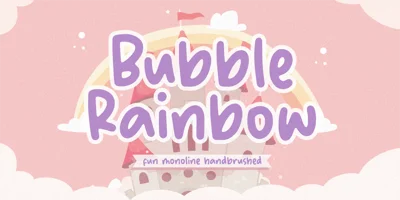
Bubble Rainbow Font
Bubble Rainbow Font is perfect for joyful projects including children's party invitations, toy store branding, candy packaging designs, daycare center graphics, birthday celebration materials, kids' clothing labels, playground signage, and colorful educational resources. This delightful typeface brings cheerful playfulness and rainbow magic to any design project.
What makes Bubble Rainbow Font exciting is its perfect fusion of bubbly fun and rainbow colors that instantly creates happiness and wonder. The rounded letterforms feature soft, bubble-like characteristics and vibrant rainbow elements that capture the pure joy of childhood while maintaining excellent readability for young readers. This font delivers the perfect combination of whimsy and accessibility, creating an atmosphere of celebration that brings smiles to faces of all ages.
The Bubble Rainbow Font family typically includes playful weights with bubble styling, complete uppercase and lowercase alphabets, numerals, punctuation, and fun symbols. The design often features rounded characteristics and colorful elements that enhance the joyful aesthetic. Some versions include additional decorative bubbles, rainbow effects, and specialized characters perfect for children's and celebration applications.
Whether you're designing for children's brands, party planners, or family entertainment venues, Bubble Rainbow Font delivers the magical happiness that creates unforgettable experiences. Its cheerful presence makes it ideal for memorable logos and marketing materials that need to convey pure joy and innocent fun. The font's playful heritage ensures it communicates celebration and wonder, making it perfect for any project requiring the delightful aesthetic of childhood magic and rainbow happiness.